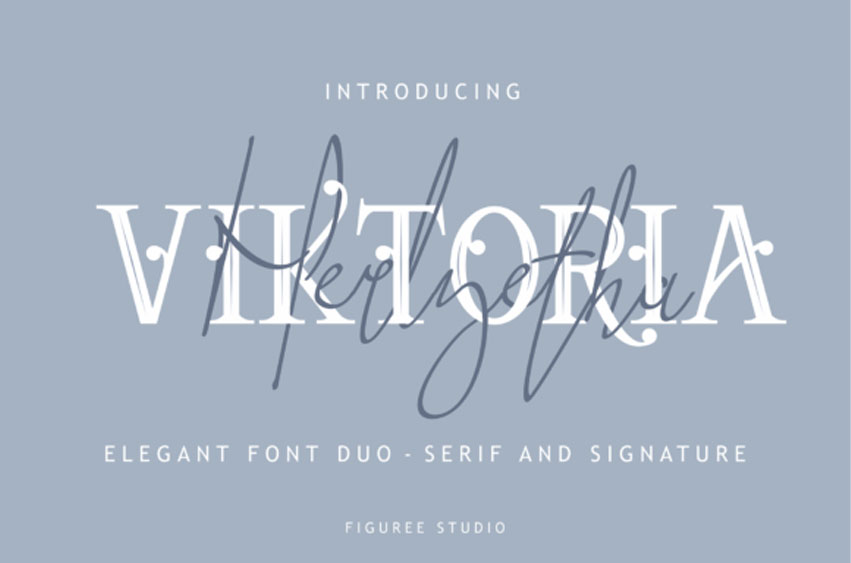
Viktoria Duo Font
Viktoria Duo Font is a beautiful classic font duo. It can be combined perfectly which will give you amazing results.
It can be used for quotes, logos, posters, website, wedding invitations, book, social media, and more!